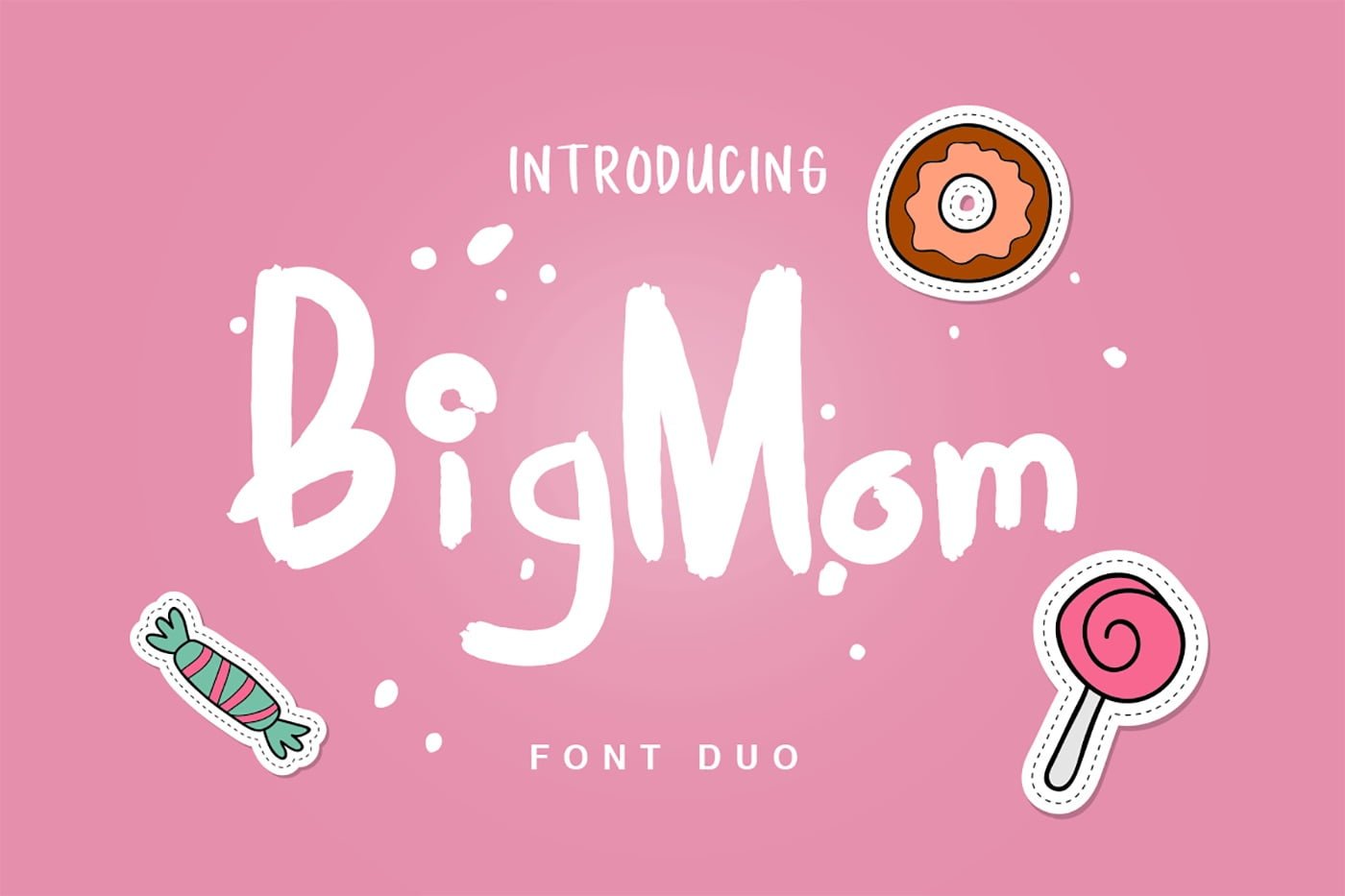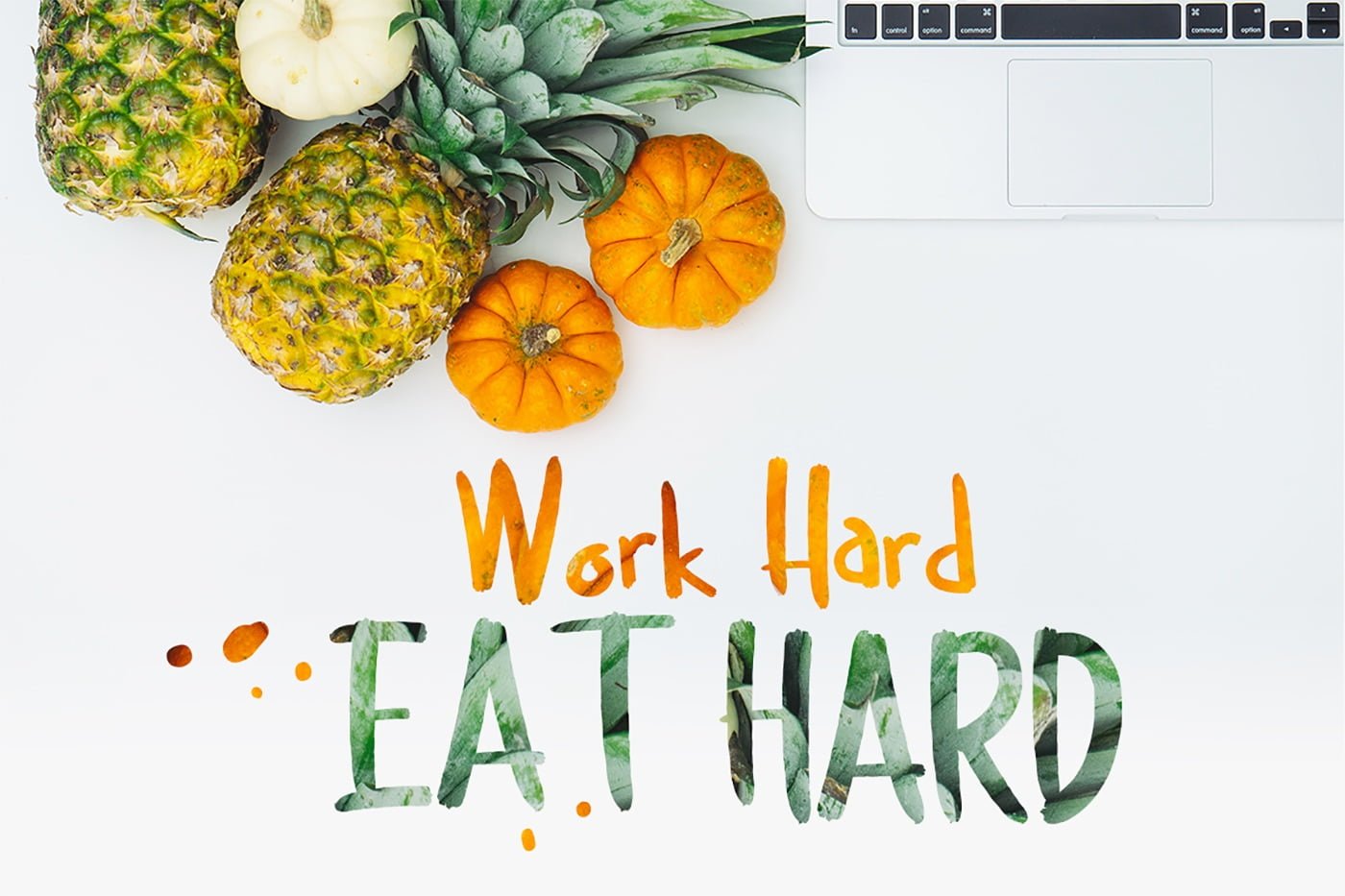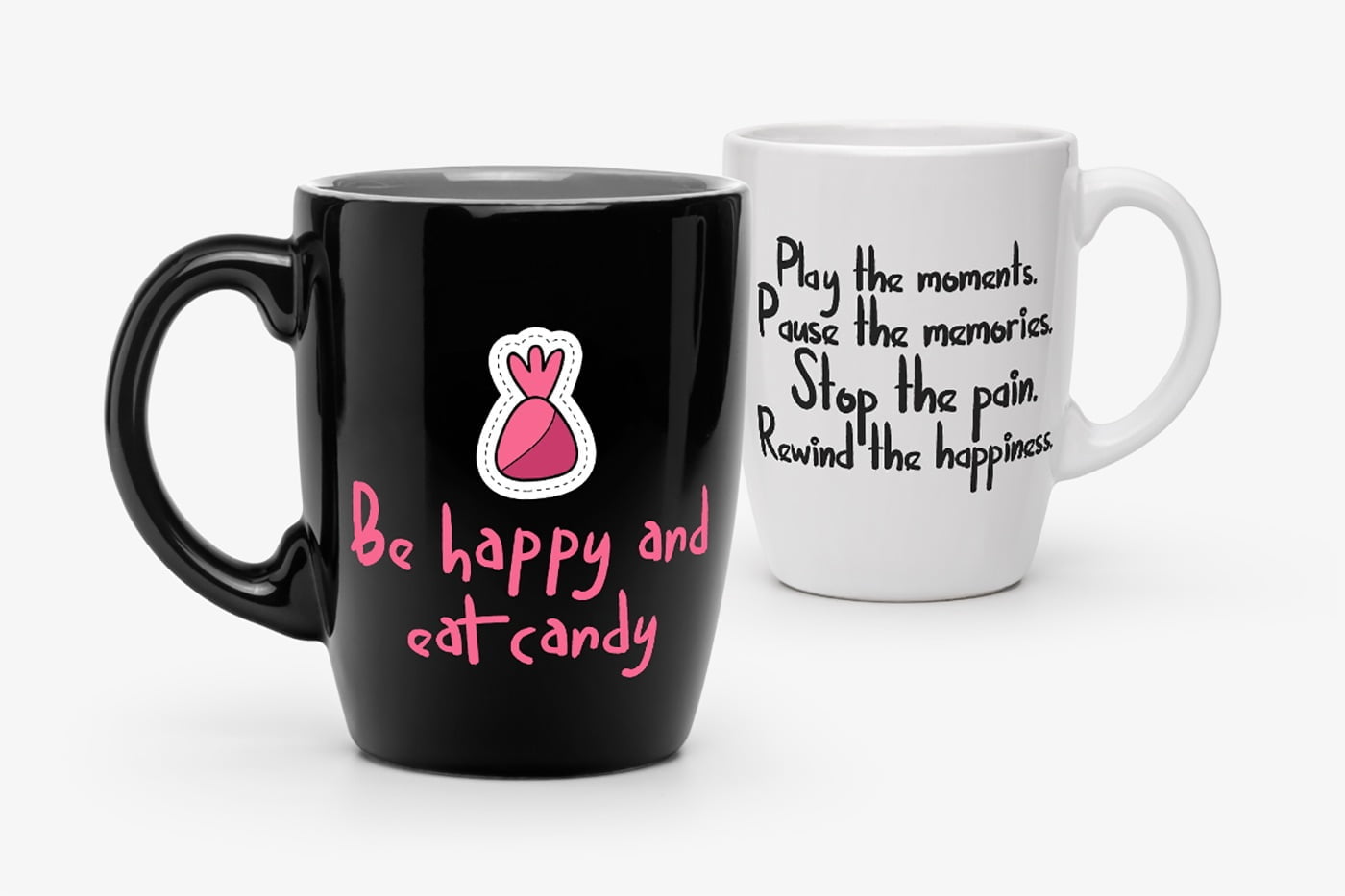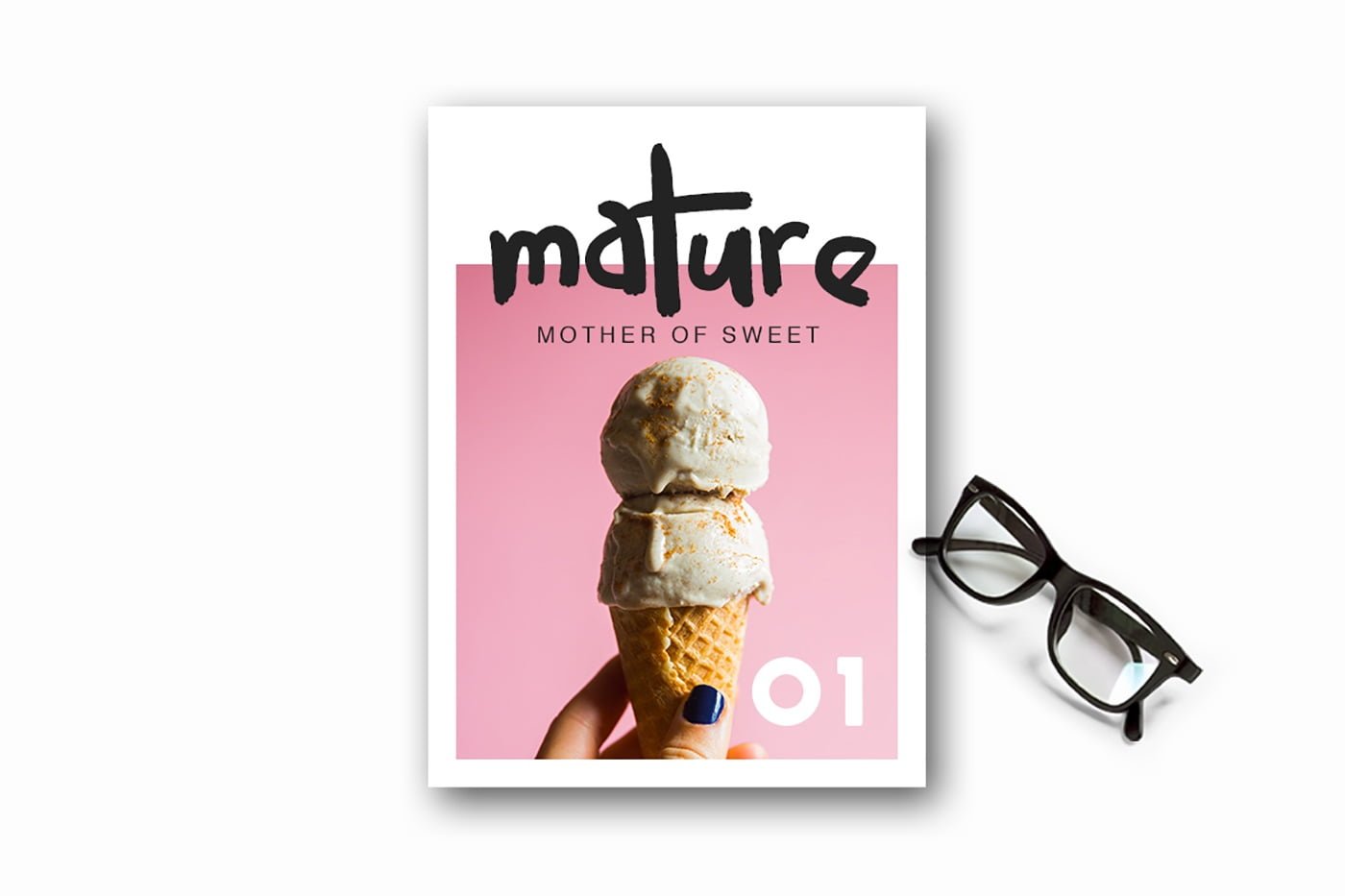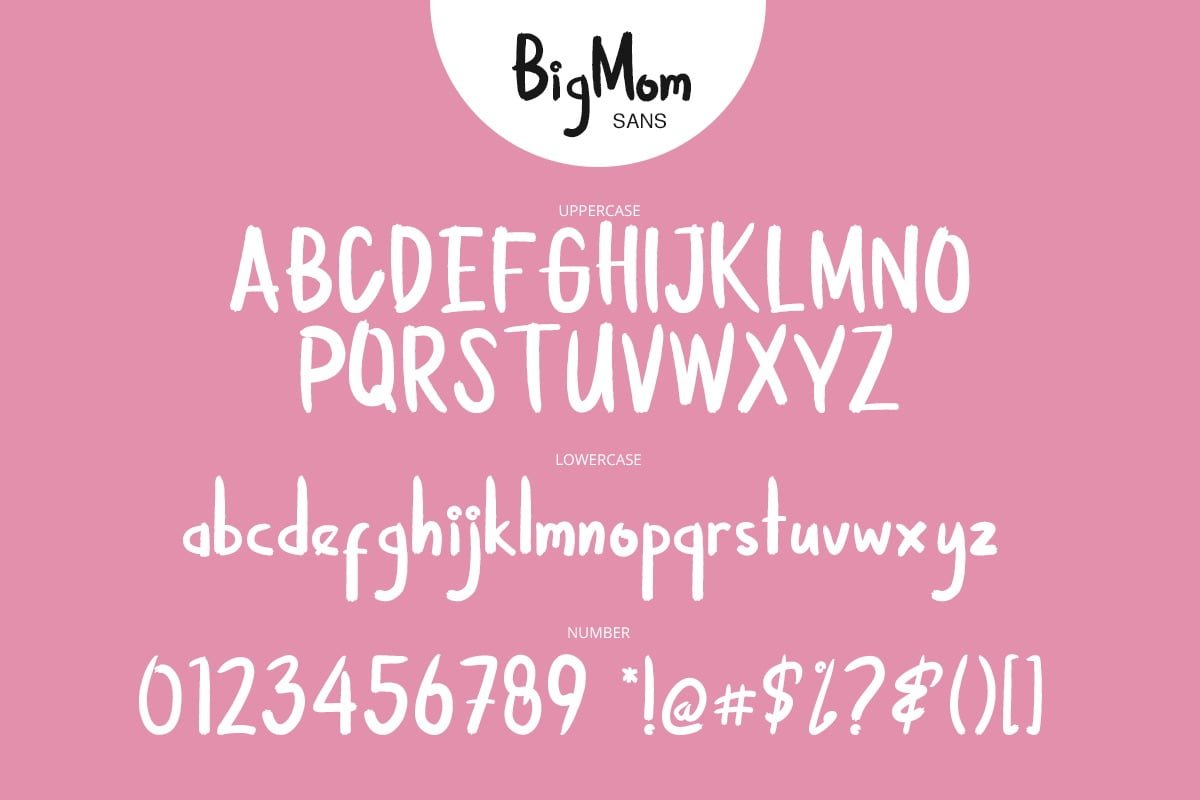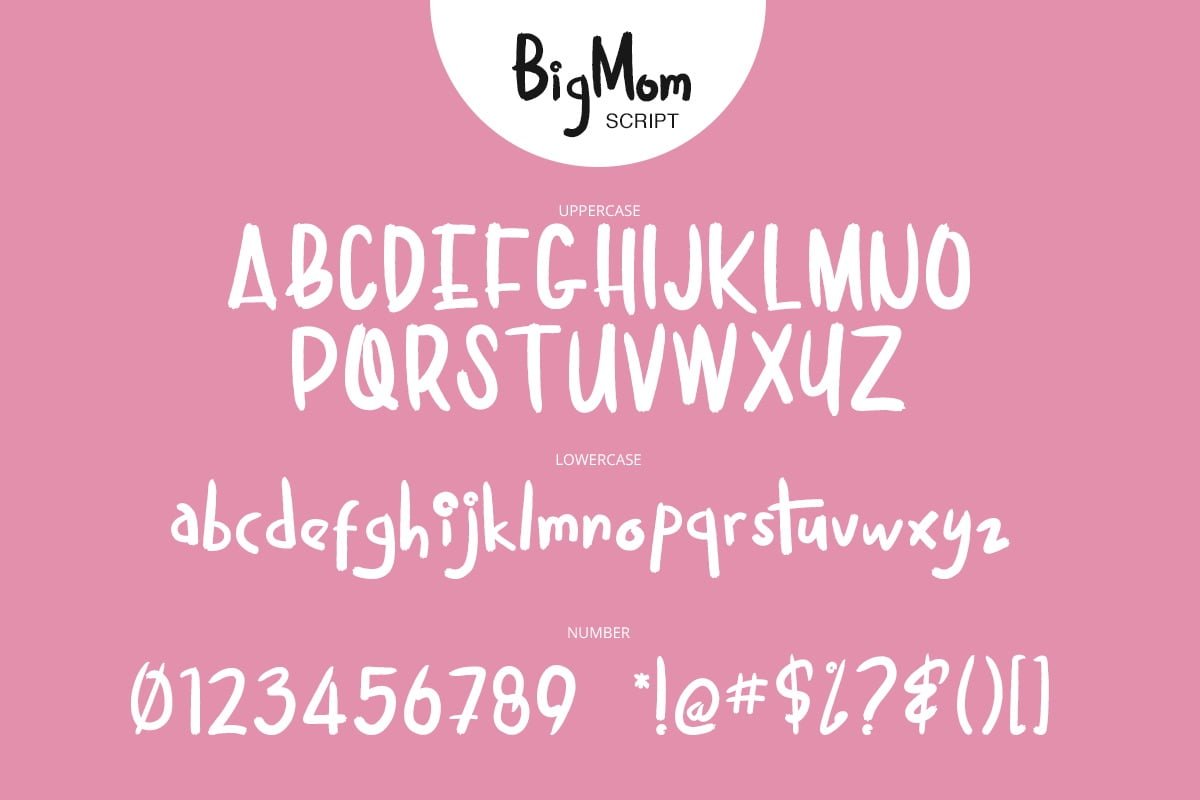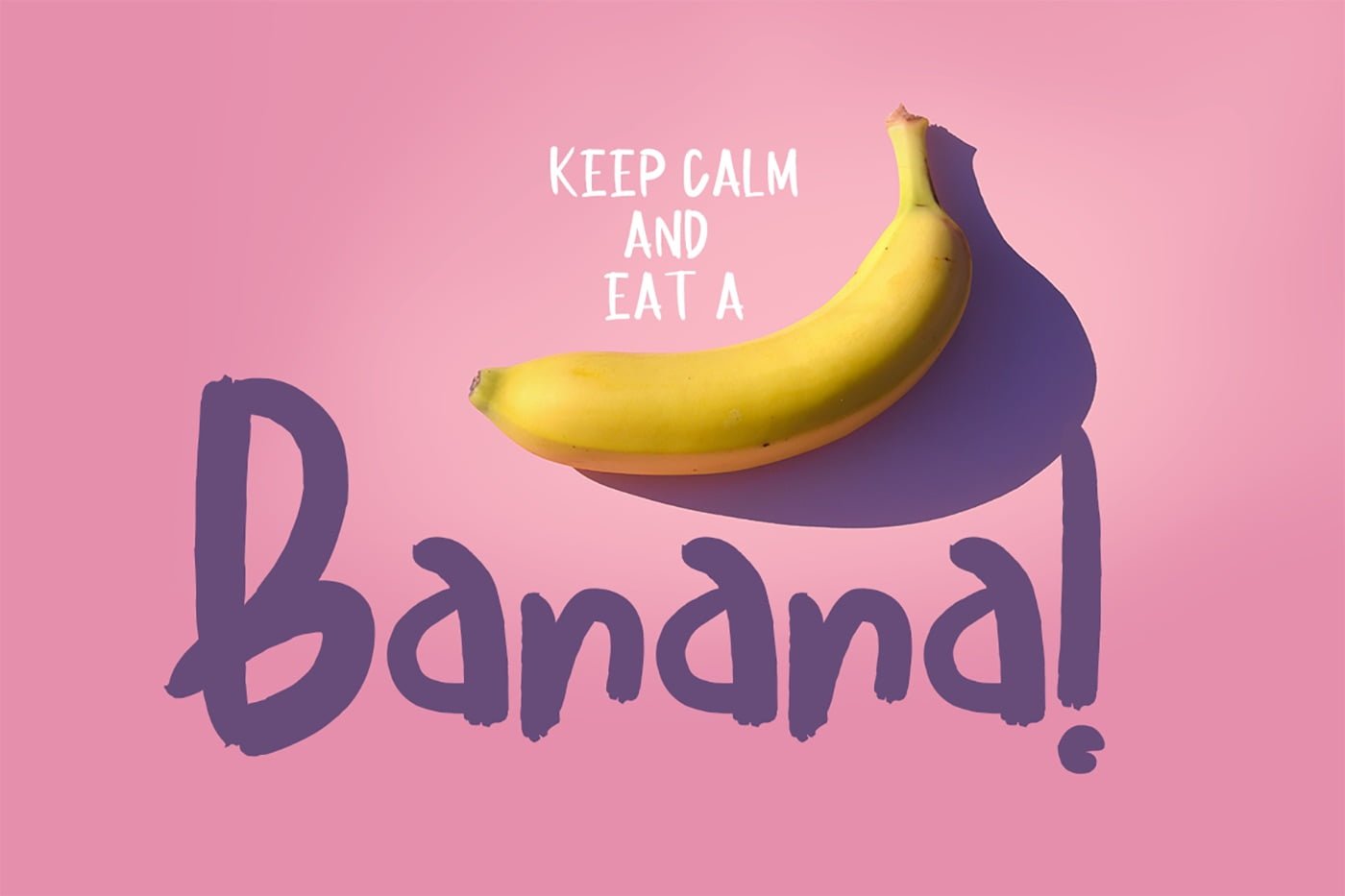
BigMom is a hand drawn font duo that consists of unique display and script style. Every single letters have been carefully crafted to make your text looks beautiful. BigMom Duo is a modern unique style that will make your design stand out from the rest.
BigMom Handwriting